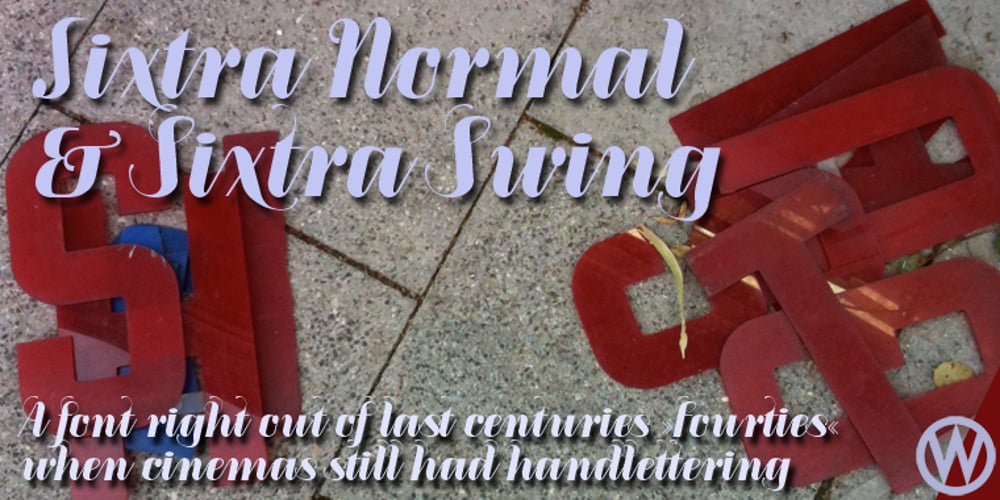
Sixtra Font Family was designed by Gert Wiescher and published by Wiescher Design. Sixtra contains 4 styles and family package options. Sixtra is a font right out of the 30’s or 40’s of last century. I discovered a few letters on an old package for some obscure cutlery manufacturerer and made a font of those six letters. Hence Sixtra! -Your font designer with strange inspirations, Gert Wiescher.